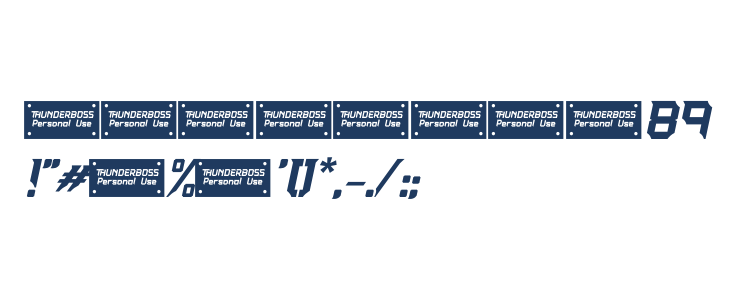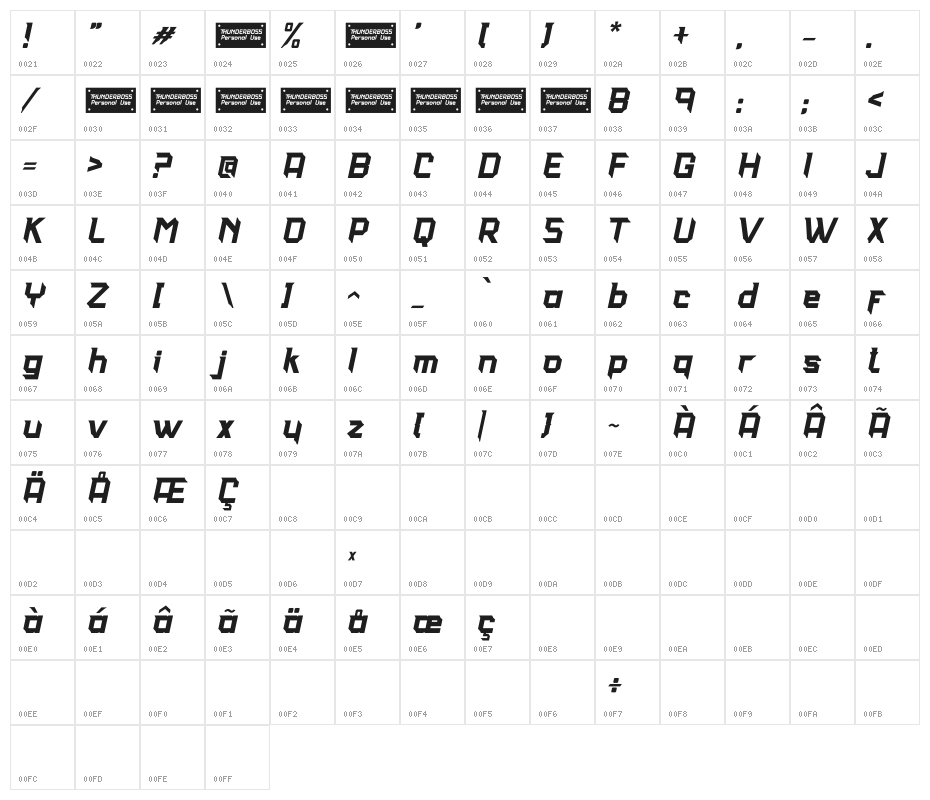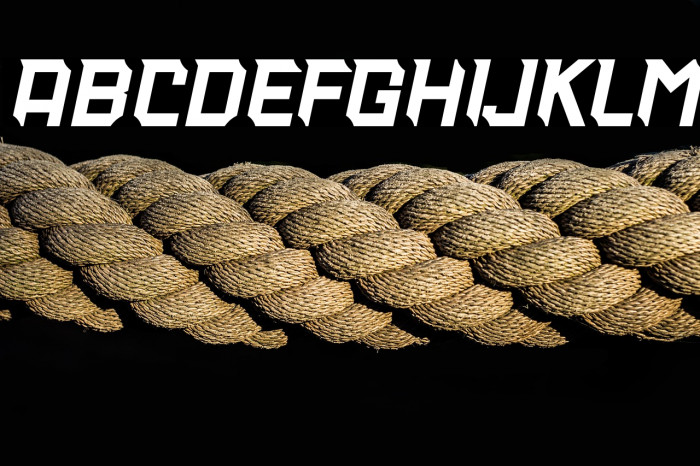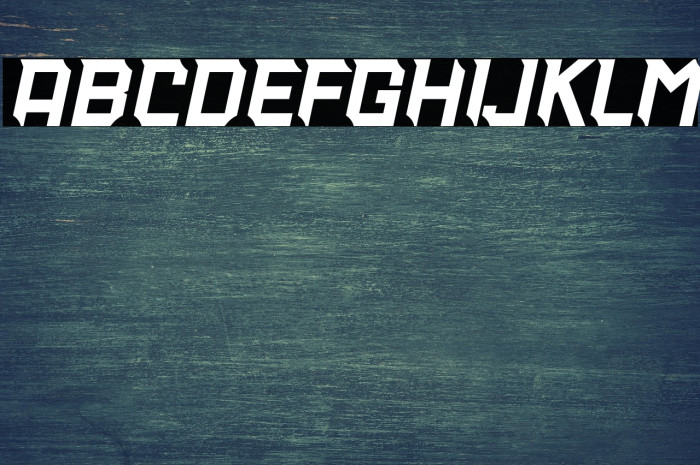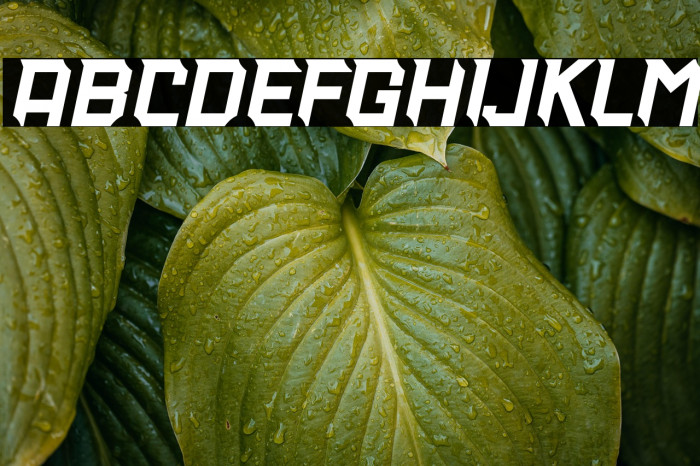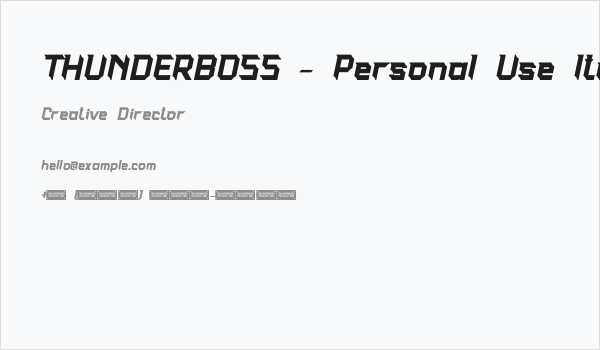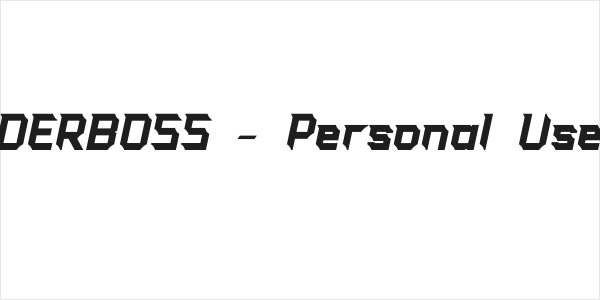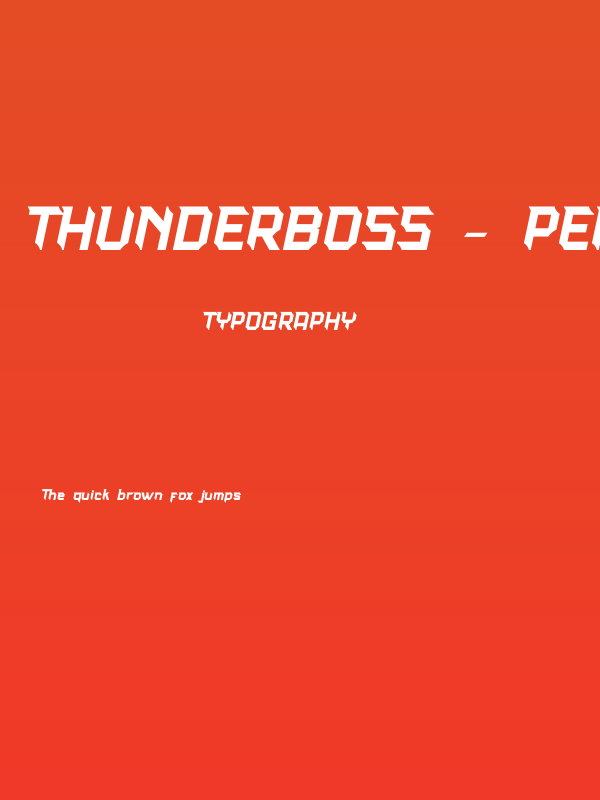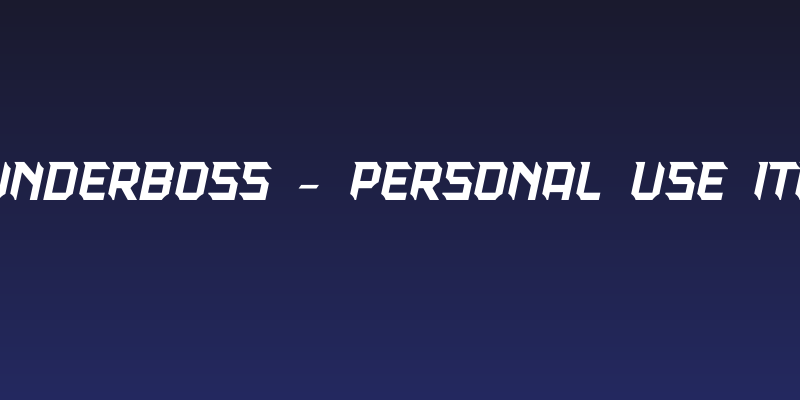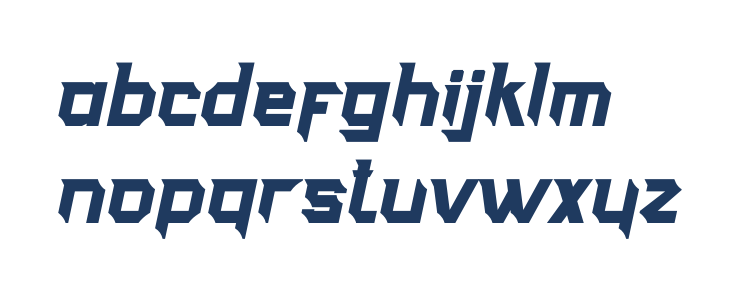
THUNDERBOSS - Personal Use Italic Font
THUNDERBOSS - Personal Use Italic Description
This font features a bold and dynamic style with a strong geometric influence. The characters are sharply angled, giving them a futuristic and aggressive appearance. The uppercase and lowercase letters maintain a consistent slant, enhancing the italicized effect. The numbers and special characters follow the same bold and angular design, ensuring uniformity across all elements. The font's unique style makes it stand out, ideal for projects that require a strong visual impact.
| Proposed Projects | Ideal for sports branding, video game titles, action movie posters, and dynamic logo designs. |